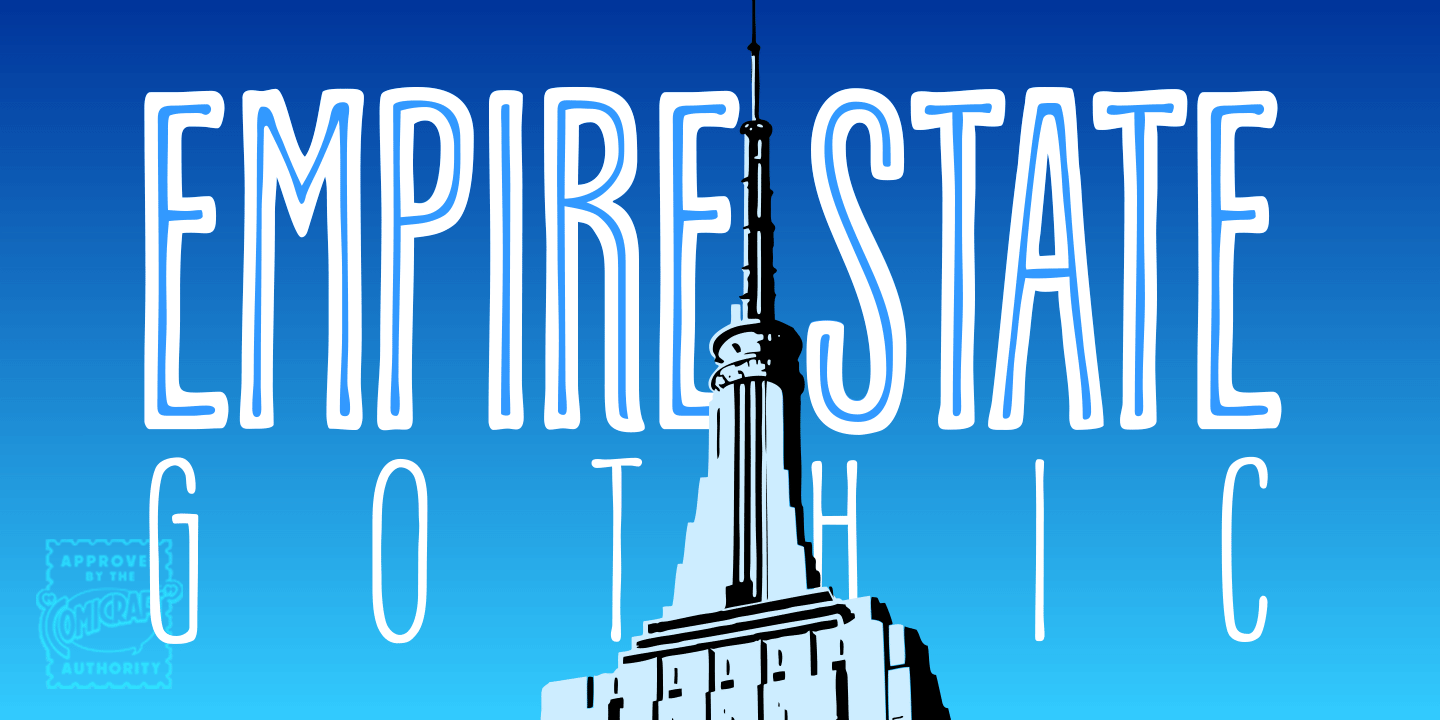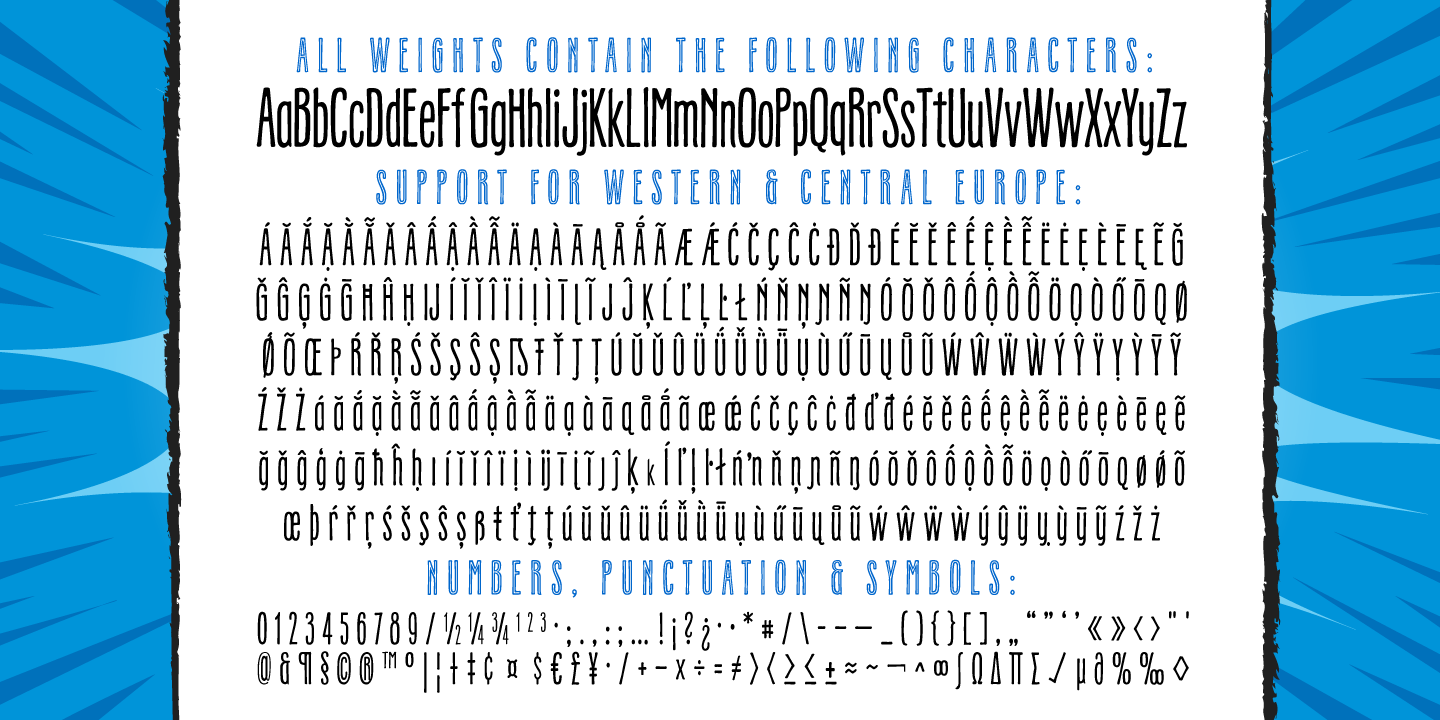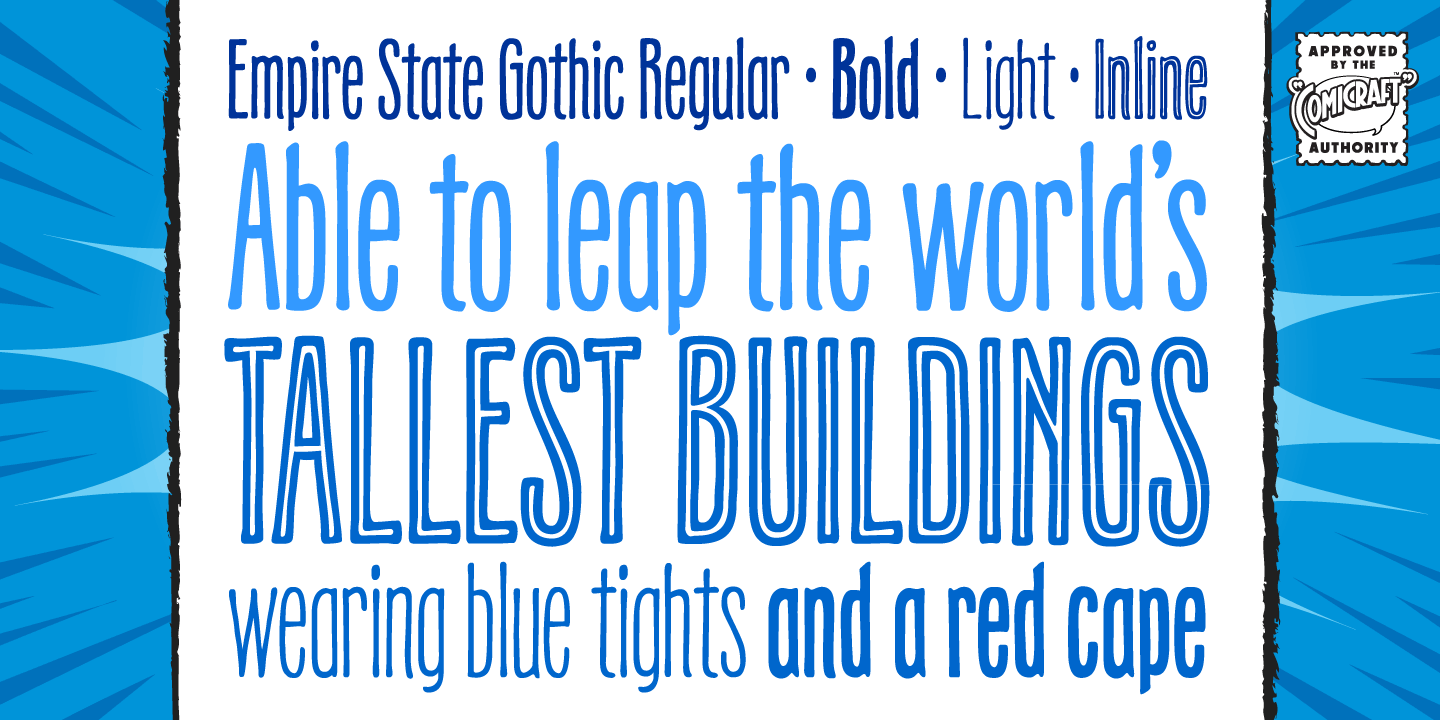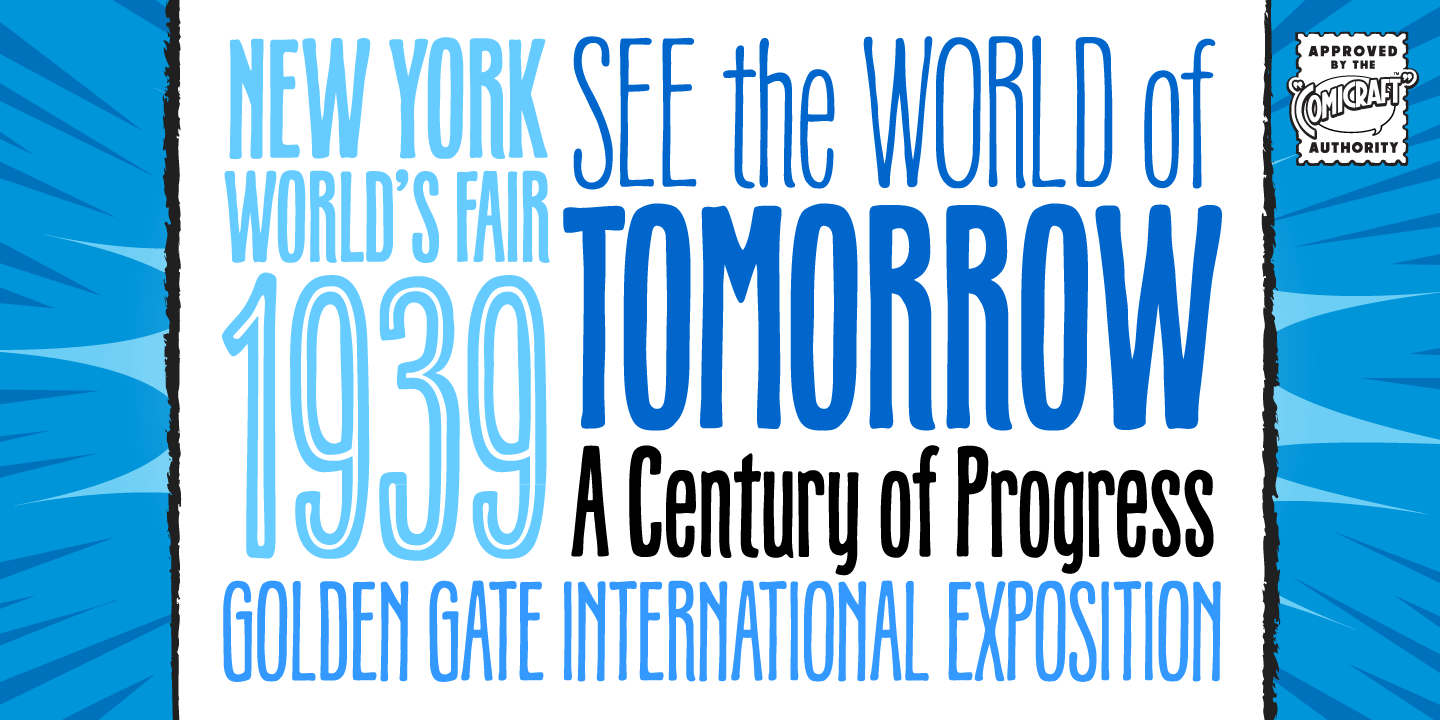
Empire State Gothic
Empire State Gothic is, from basement to spire, an exultant, soaring skyscraper of a font, distinguished by its high arches, steel-framed construction and the glory and pride of Comicraft's fine woodwork and stonework!
You might find it surprising, then, that this tall, lanky font was something of a loner during its teenage years, mingling with others of its kind in the shadowy corners of coffeehouses, nurturing feelings of belittlement while craving attention it may not have rightly deserved.